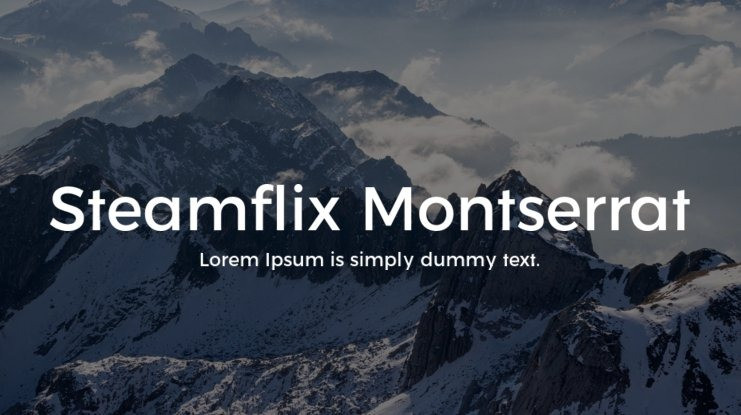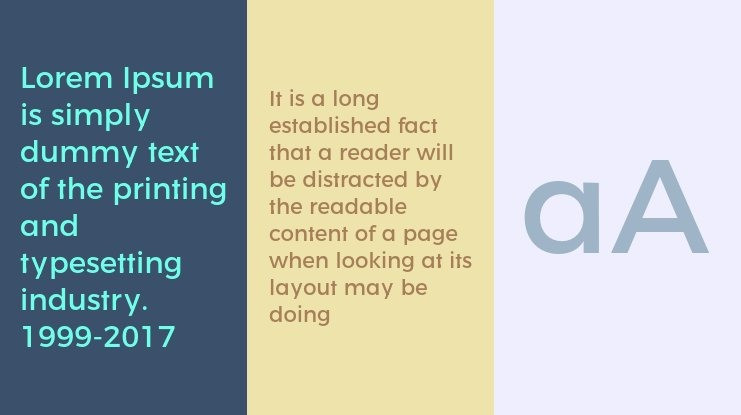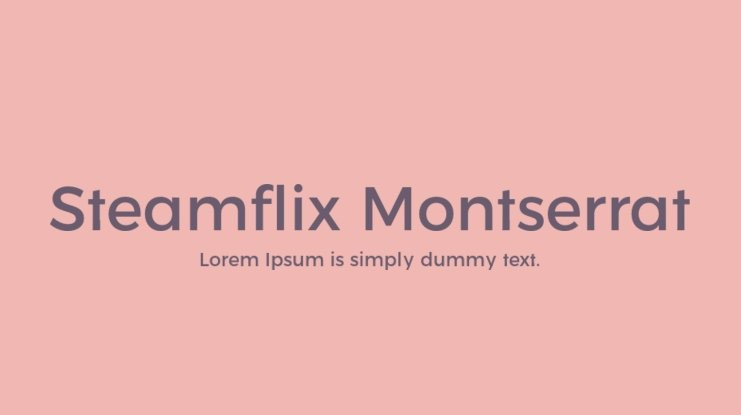
Steamflix Montserrat Font
Steamflix Montserrat Sans Serif Font,  Perfectly fit for branding, logo, wedding things, greeting cards, fashion, lookbook, marketing promotion, anytime you want to look fancy elegant but still casual.